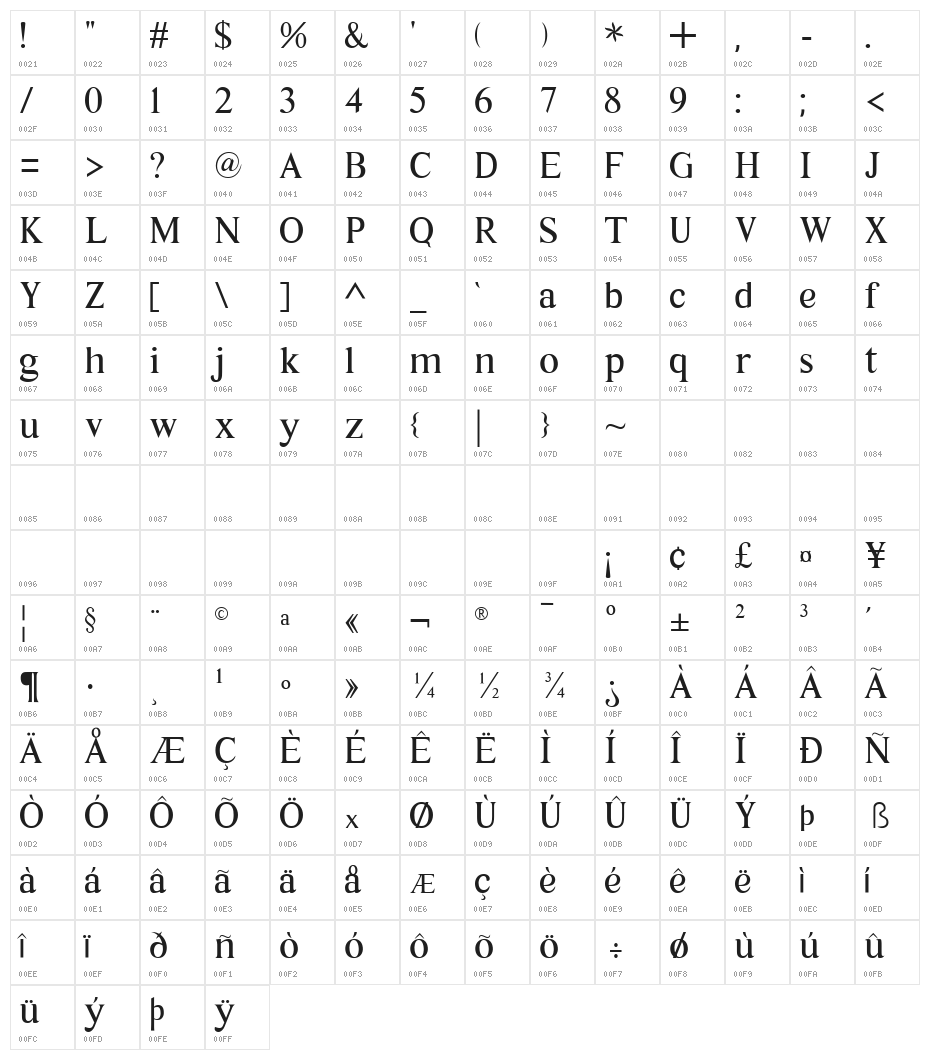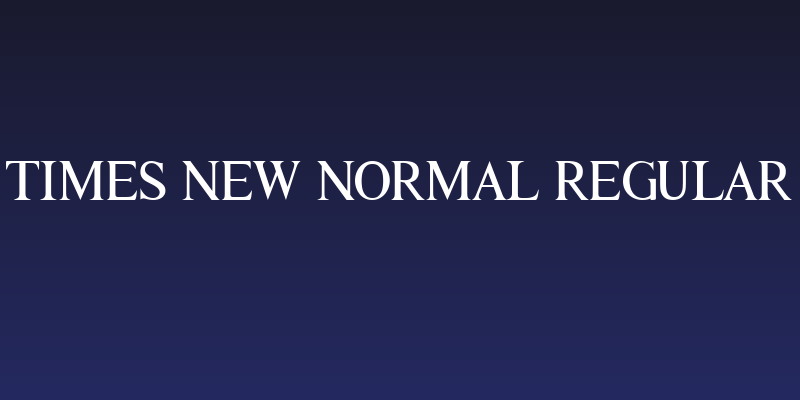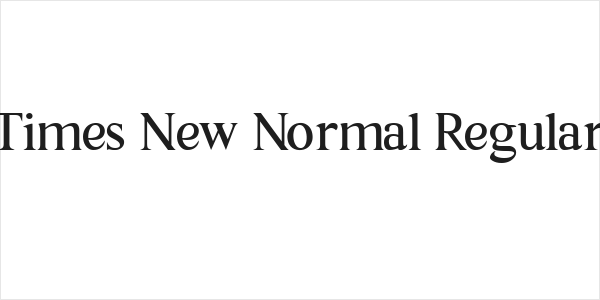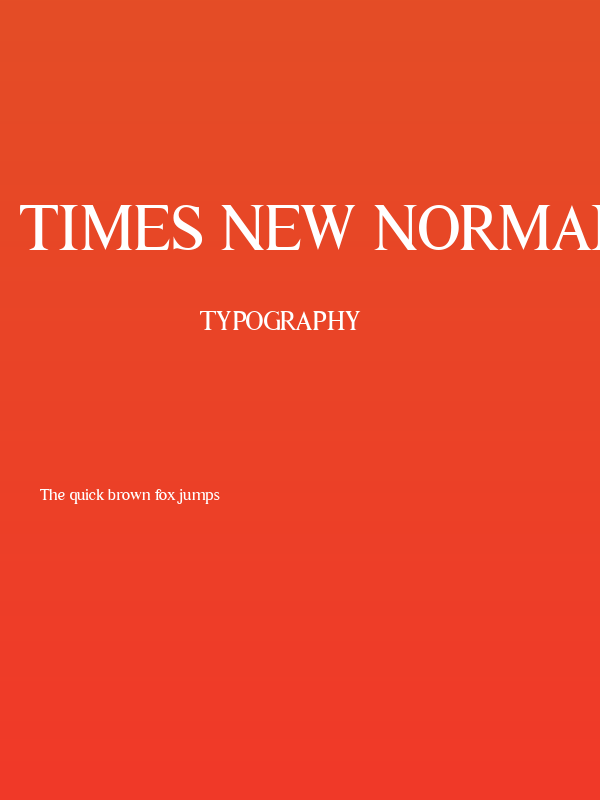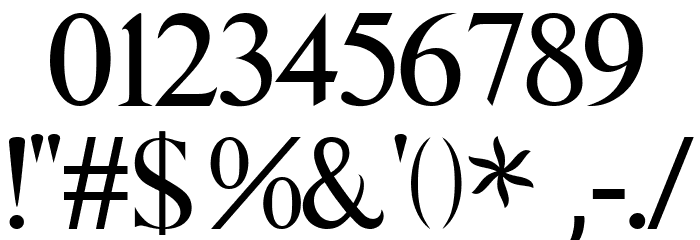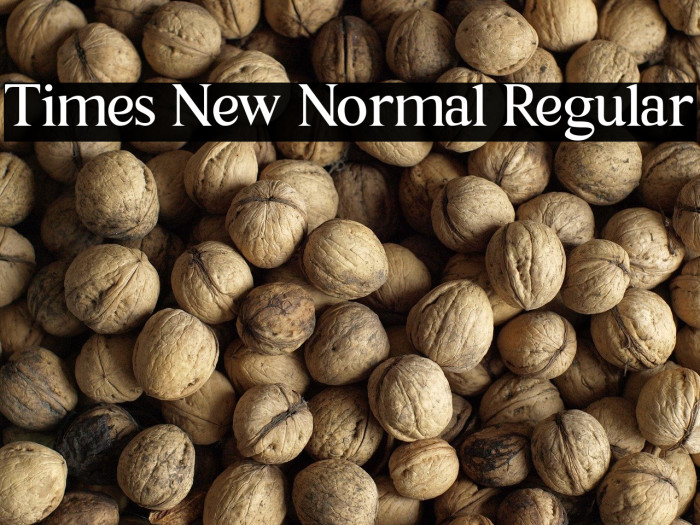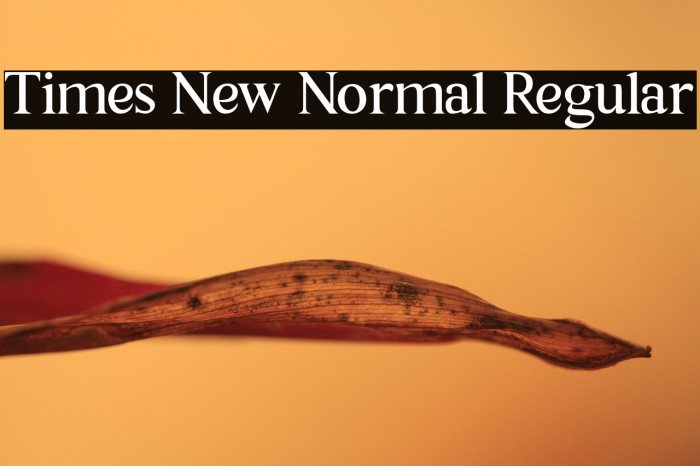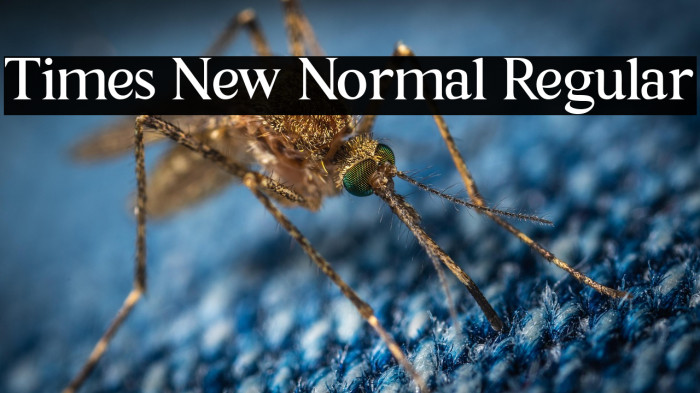
Times New Normal Regular Font
Times New Normal Regular Description
This font embodies a classic serif style with elegant and refined strokes. The characters are well-proportioned, featuring distinct serifs that enhance readability and lend a timeless quality. The uppercase letters are stately and commanding, while the lowercase letters maintain a harmonious balance. The numerals are clear and straightforward, making them suitable for both text and display purposes. Special characters are thoughtfully designed, ensuring consistency across the typeface. This font is versatile, suitable for a wide range of applications from formal documents to sophisticated branding.
| Use Case | Body text, Headlines, Editorial design |
| Proposed Projects | Ideal for editorial design, book publishing, formal invitations, and corporate branding. |